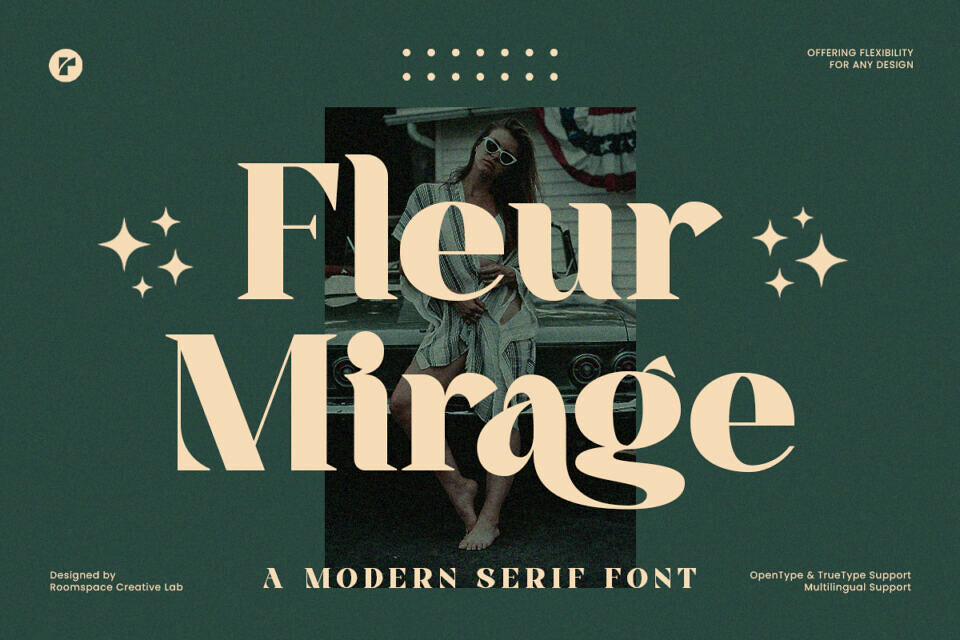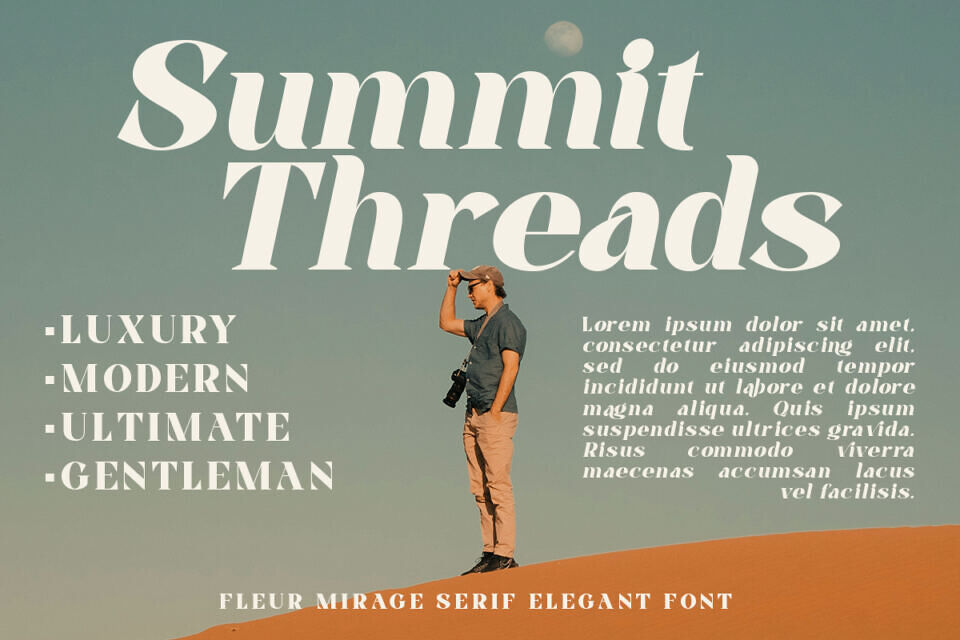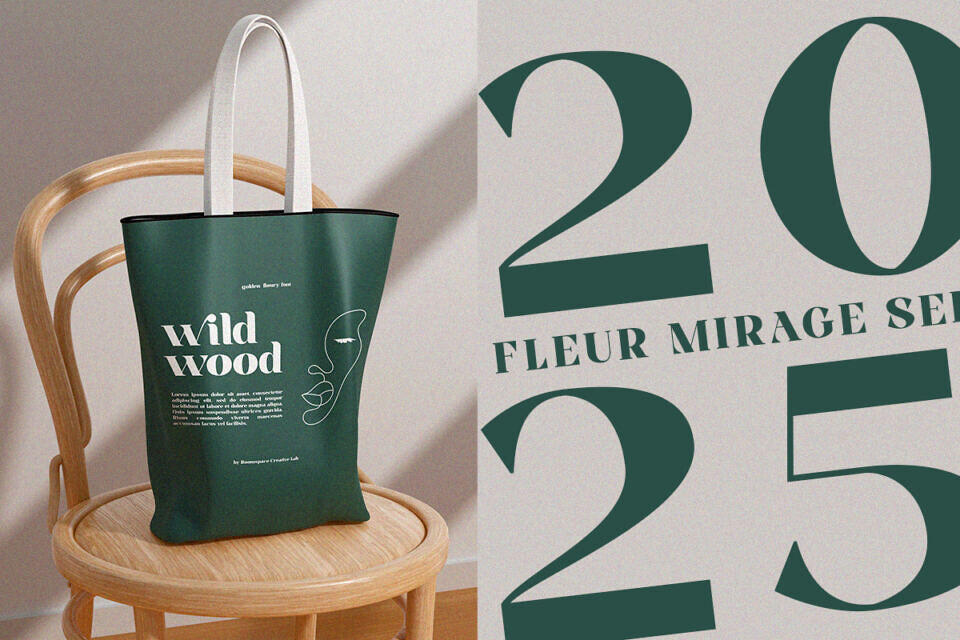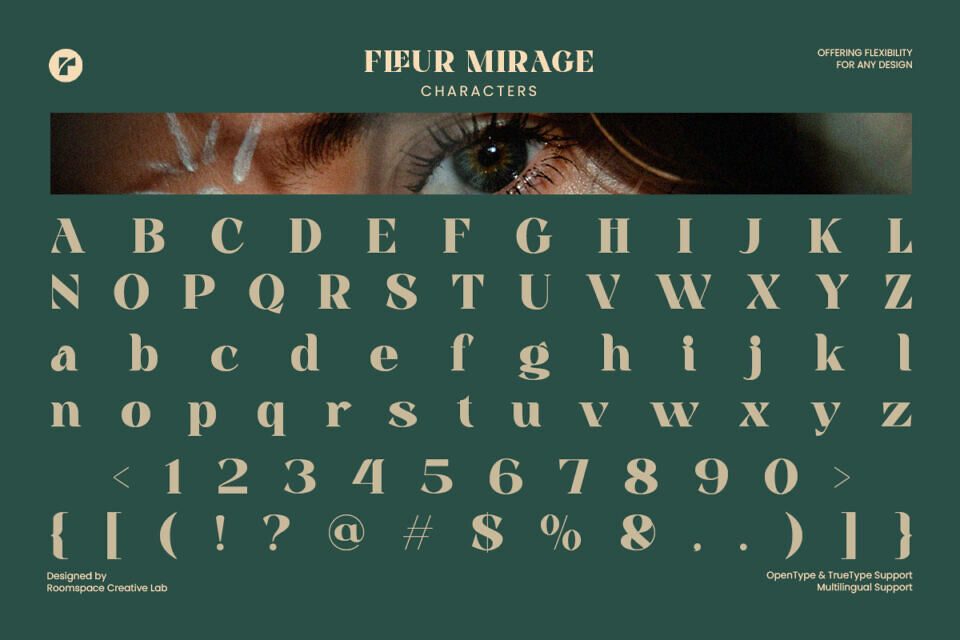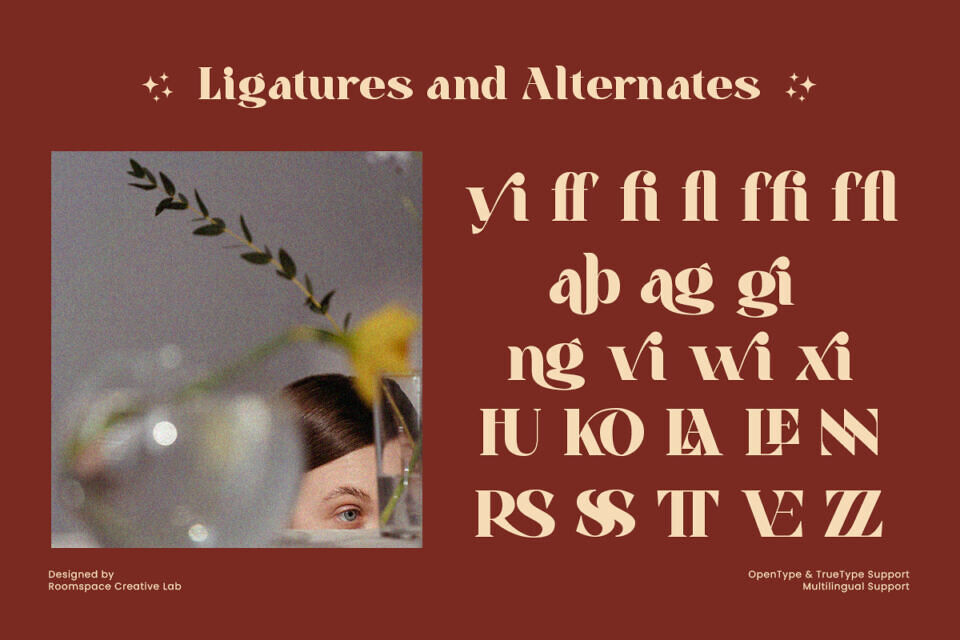
Fleur Mirage Font
Fleur Mirage is a stunning serif font that perfectly blends retro charm with modern elegance. Designed to elevate your creative projects, this versatile typeface offers a classy and stylish appeal. Whether you’re crafting logos, wedding invitations, magazine layouts, or social media graphics, Fleur Mirage adds sophistication and uniqueness to every design.
With its retro and vintage appeal, Fleur Mirage captures the timeless aesthetic of the 60s and 70s. Its elegant and stylish design makes it a standout choice for both classic and trendy projects. The font is crafted with soft curves and bold serif elements, striking the perfect balance between modern and decorative styles.Not only is it ideal for logos, headlines, and branding, but it also comes with unique ligatures and alternates, giving you the freedom to create personalized and artistic typography.